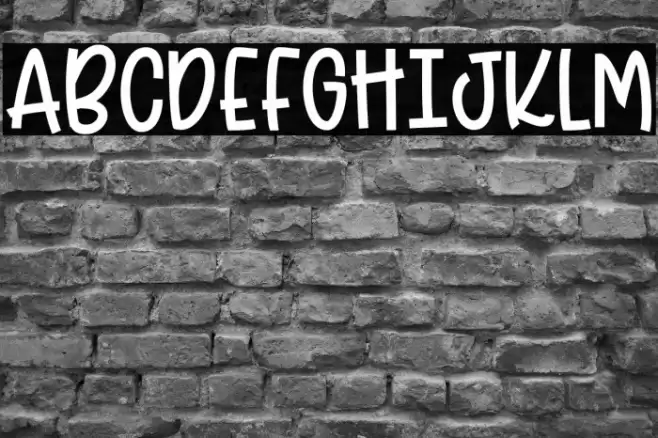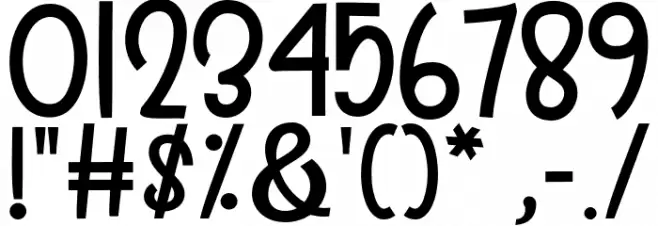
PINKSWEATS Font
PINKSWEATS Description
This playful and bold font features a handwritten style with a casual and friendly appearance. The letters are slightly irregular, adding a whimsical touch that makes it stand out. The uppercase and lowercase characters maintain a consistent style, with rounded edges and a smooth flow. The numbers and special characters complement the overall design, ensuring versatility across different uses. The font's informal nature makes it ideal for projects that require a personal and approachable feel.
A playful, bold handwritten font with a casual and friendly appearance from Uncategorized fonts.
- Proposed Projects: Perfect for greeting cards, children's books, playful branding, and social media graphics.
- Overall Style: Playful
- Use Case: Headlines, Logos, Informal Text